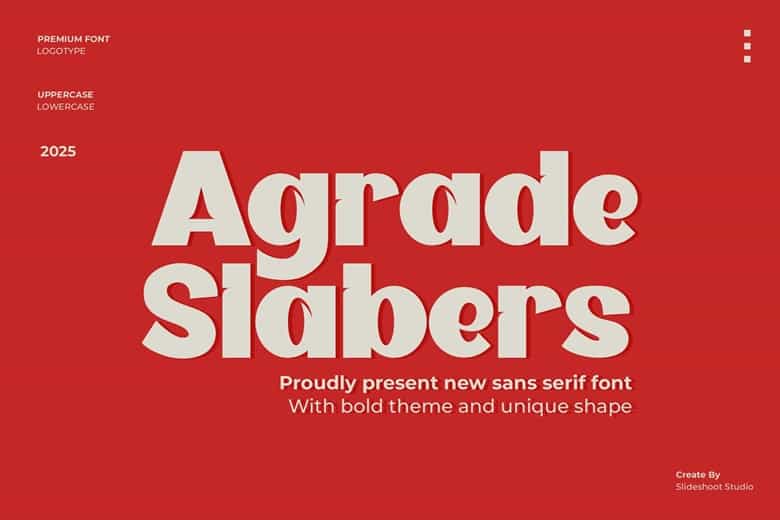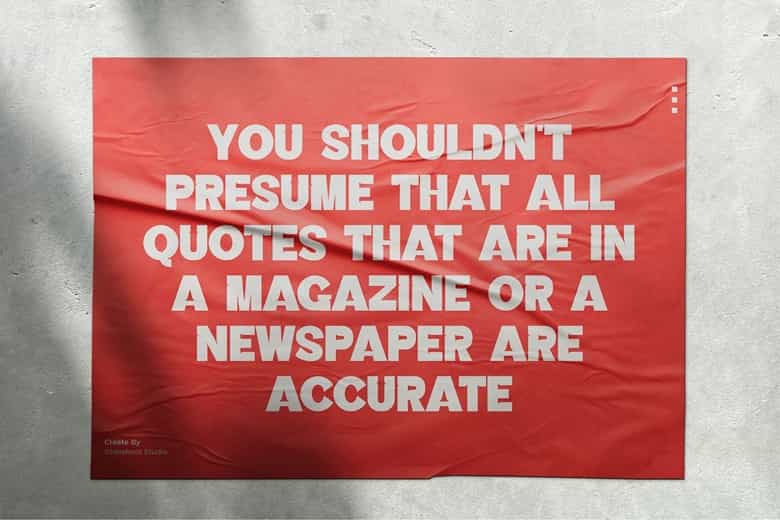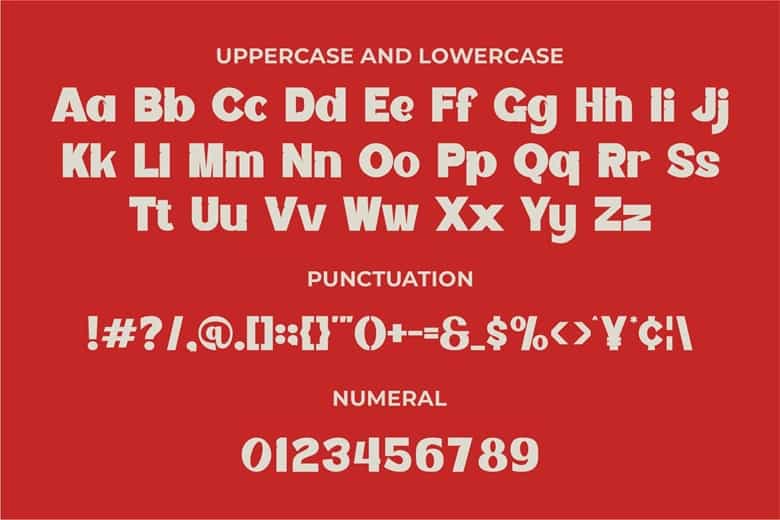
Agrade Slabers is a calm Sans Serif bold style font that is modern, trendy, bouncy and cute for display use only. It differs in its character that has a kind of a pre-dominant wood motif. It is ideal to synchronize it with invitation card designs, corporate logos, movie title, movie name, business cards, book title, brand name, and so on.